Explore the best calm fonts for your next design project. This curated list of six tranquil typefaces is perfect for creating minimalist, soothing, and harmonious visuals. Ideal for wellness websites, lifestyle blogs, and modern branding, these calming fonts will help you evoke peace and clarity in every design.
In today’s fast-paced digital landscape, designers are increasingly searching for the best calm fonts to bring a sense of peace and balance to their projects. While bold and dramatic typefaces often grab attention, the best calm fonts offer subtle elegance, gentle curves, and a soothing presence that can transform any design into a tranquil visual experience.
I’ve handpicked six of the best calm fonts every designer should have in their collection. These fonts feature clean lines, soft edges, and plenty of breathing space, making them ideal for projects that require a gentle, composed aesthetic. With these calming fonts, even the simplest layouts can feel intentional and immersive.
Why Choose the Best Calm Fonts?
- Enhance Mindful Branding: Calm fonts are perfect for wellness brands, meditation platforms, and lifestyle blogs aiming to inspire tranquility.
- Create Minimalist Aesthetics: Their understated elegance is ideal for modern portfolios and editorial layouts that prioritize clarity and simplicity.
- Evoke Harmony and Balance: The best calm fonts help establish a peaceful user experience, encouraging viewers to linger and absorb your message.
Whether you’re designing for mindfulness, elegance, or simply seeking to infuse your work with a sense of serenity, this collection of the best calm fonts will be your go-to resource. Let these typefaces guide your creative journey and bring clarity, calm, and beauty to every project.
Mellida Font
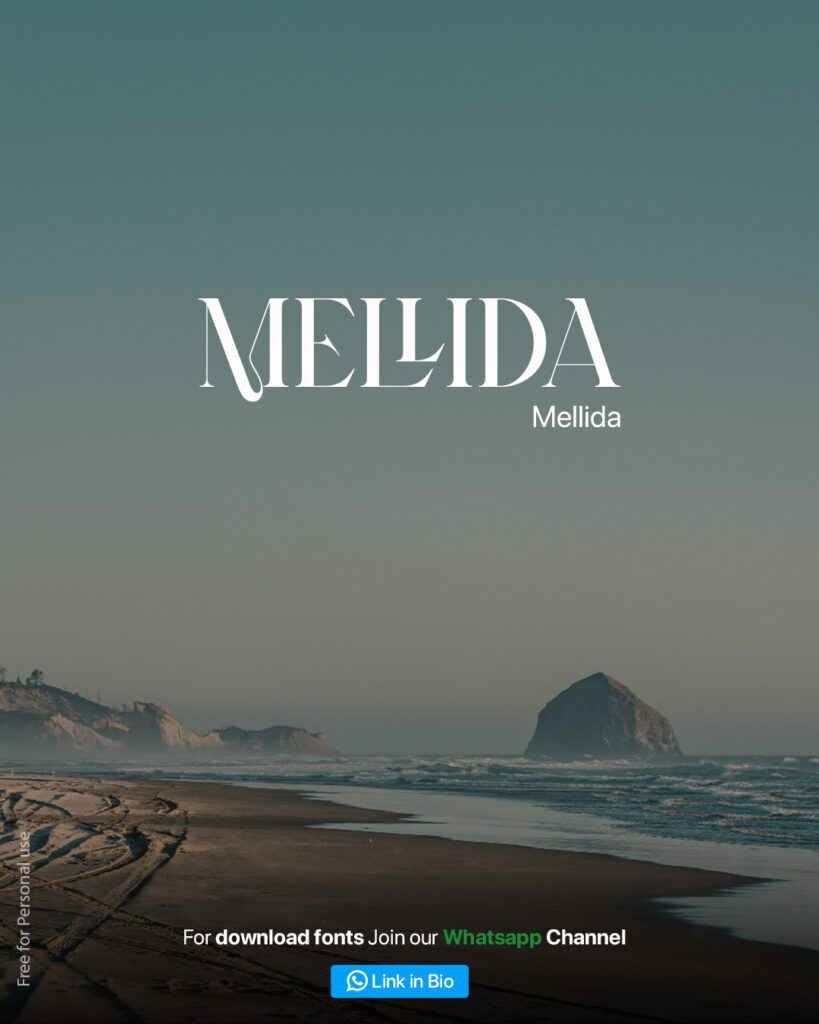
Lasthen Font
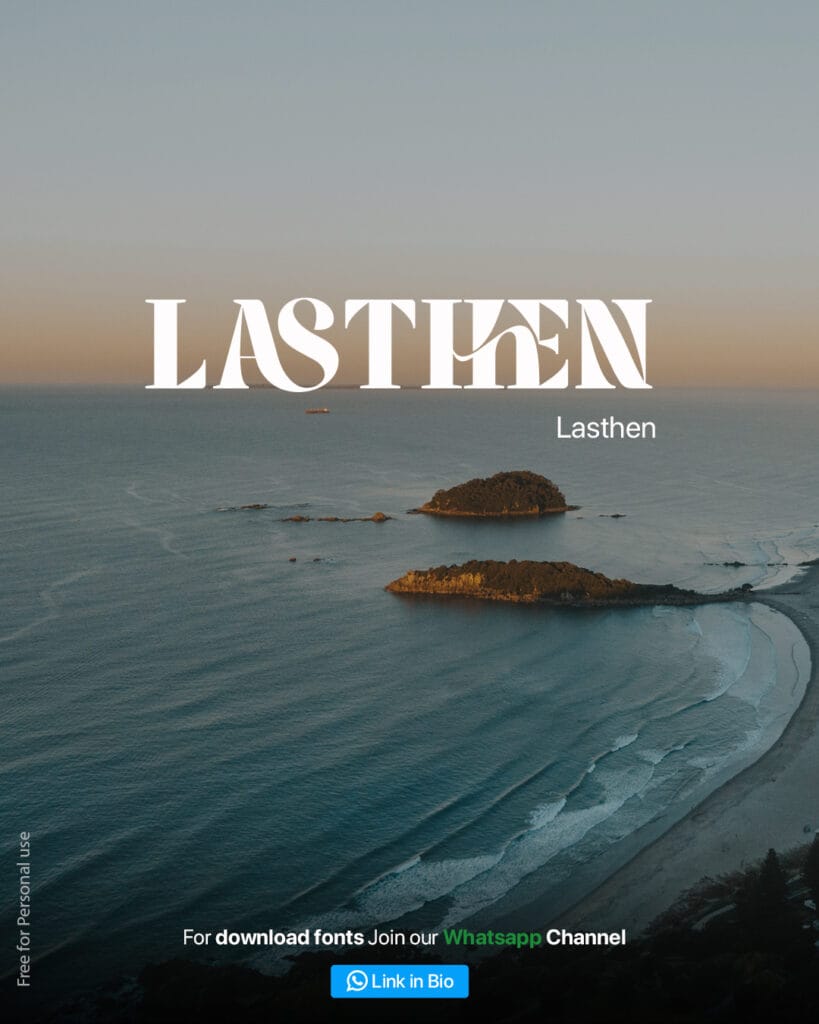
Morans Font
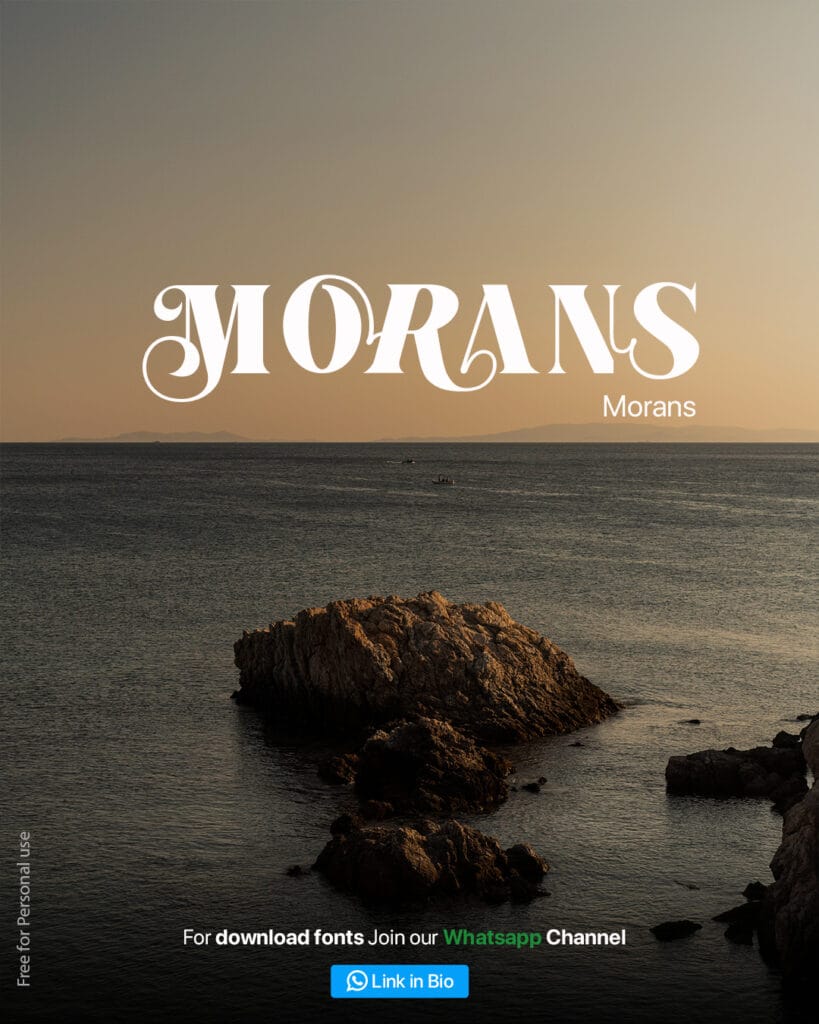
Begika Font
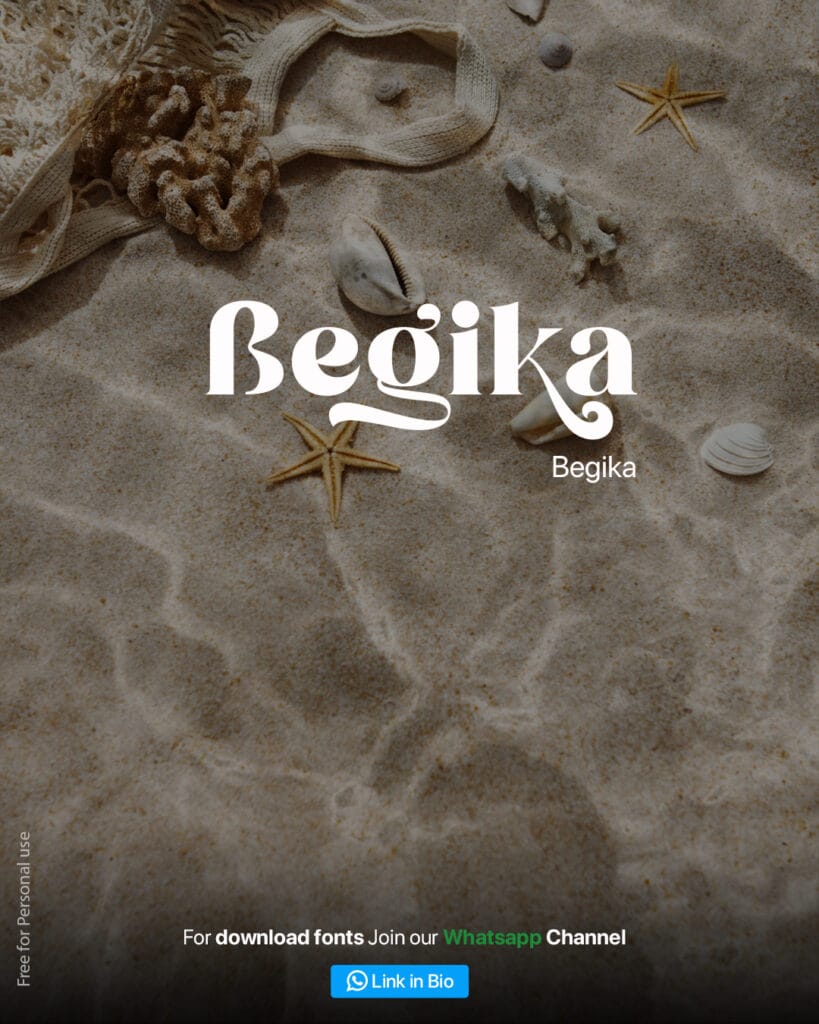
Kamean Font
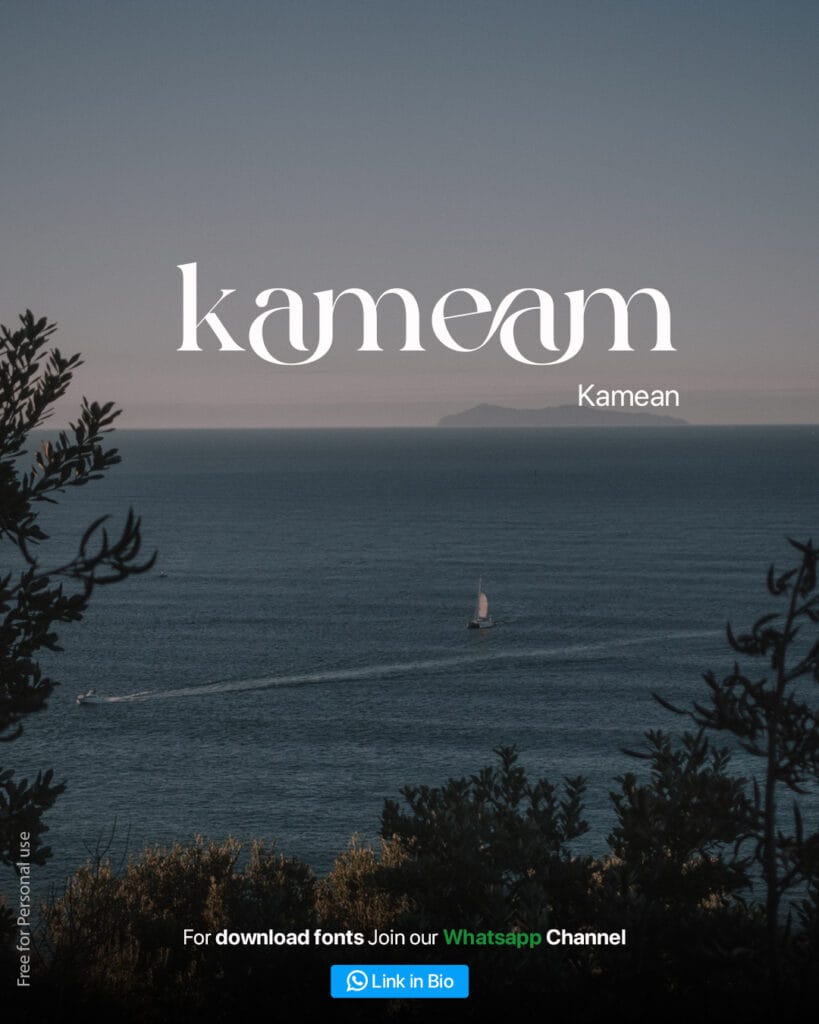
Behooved Font